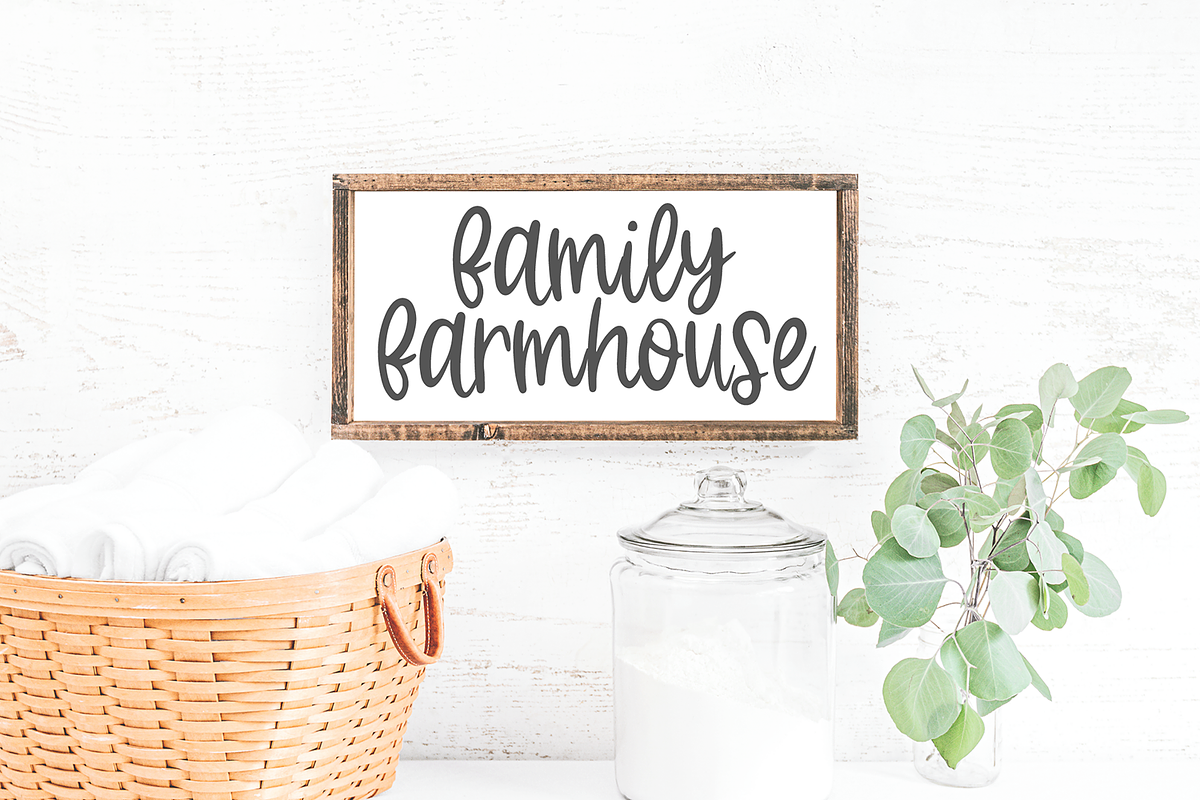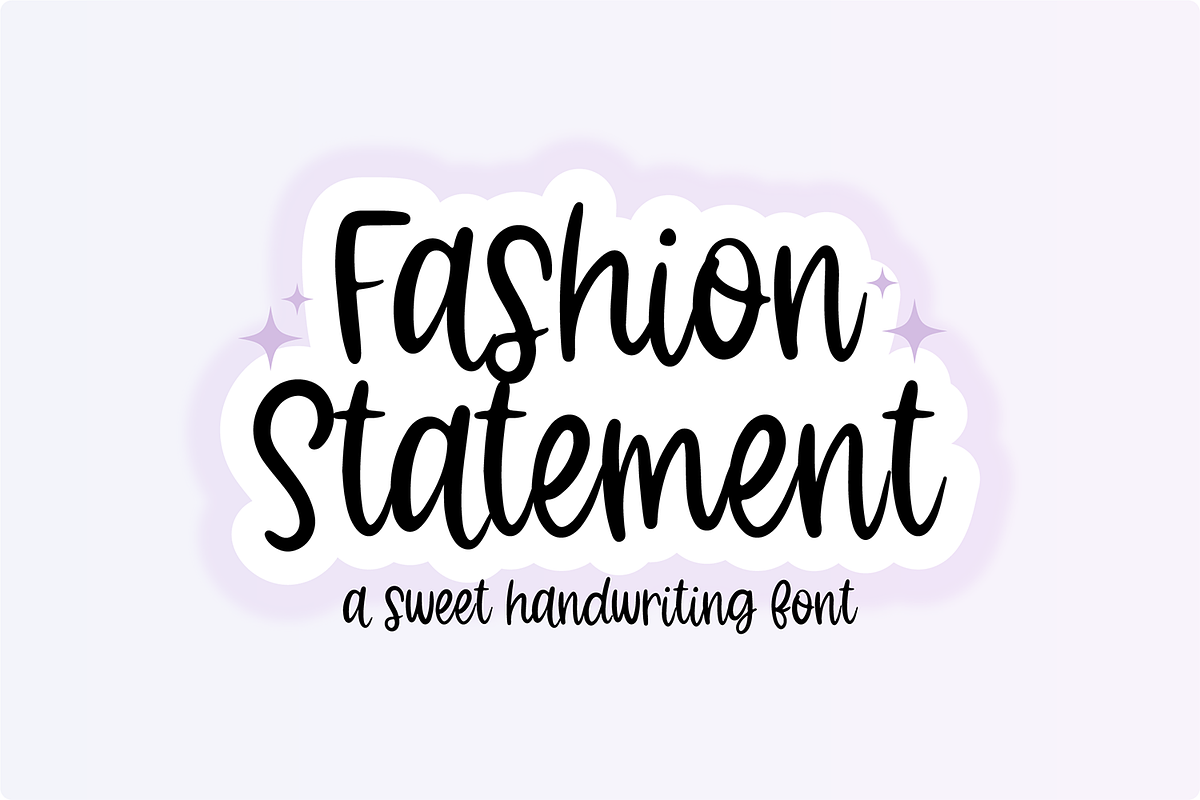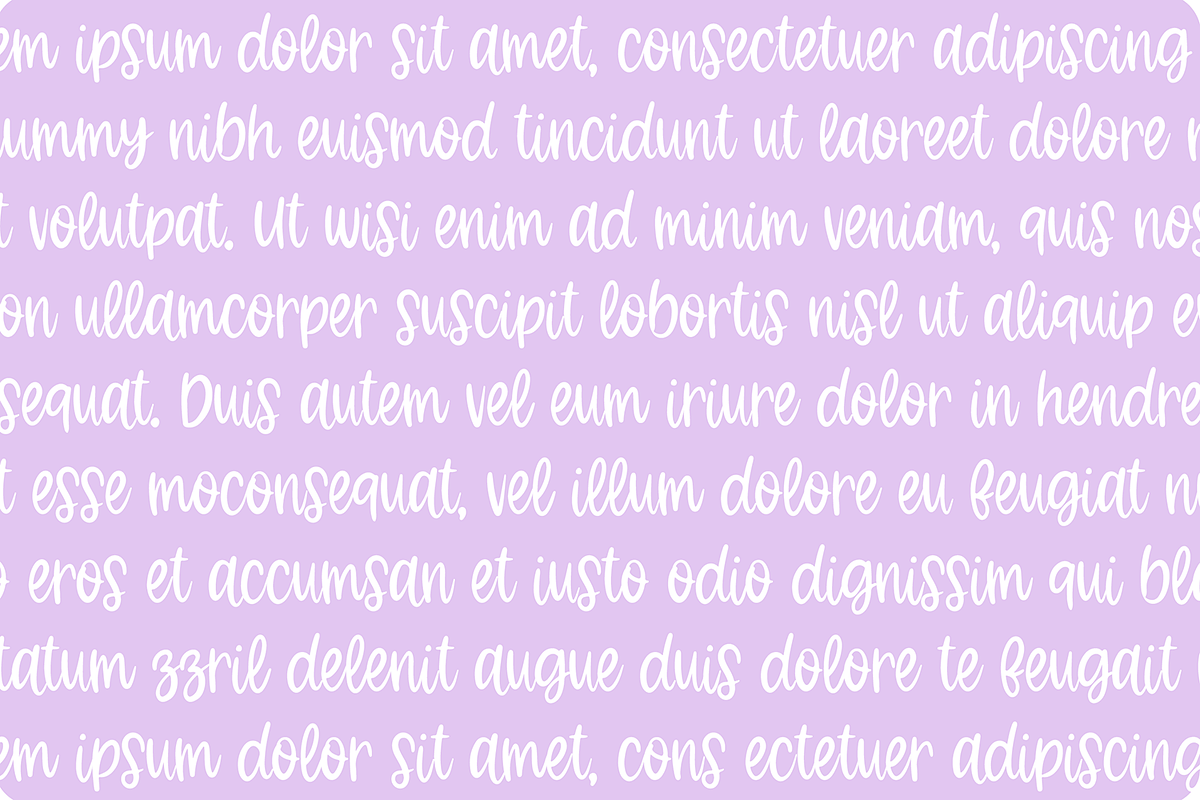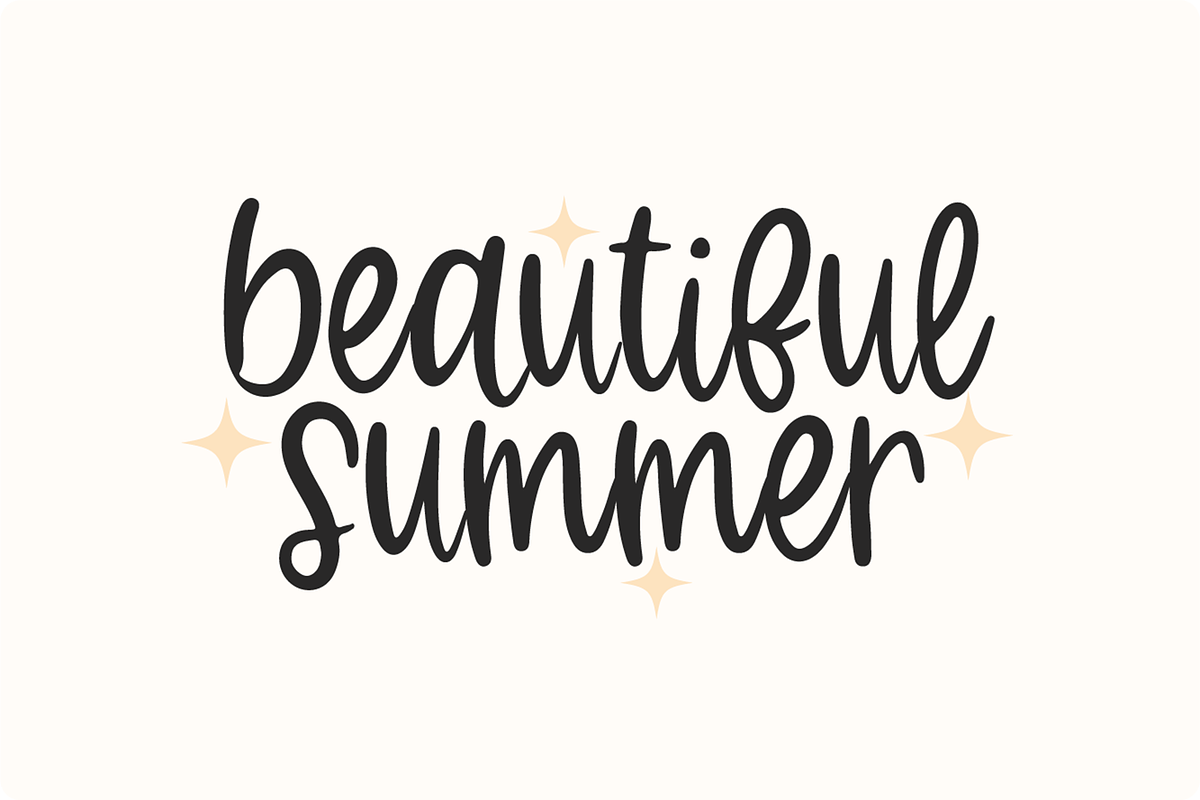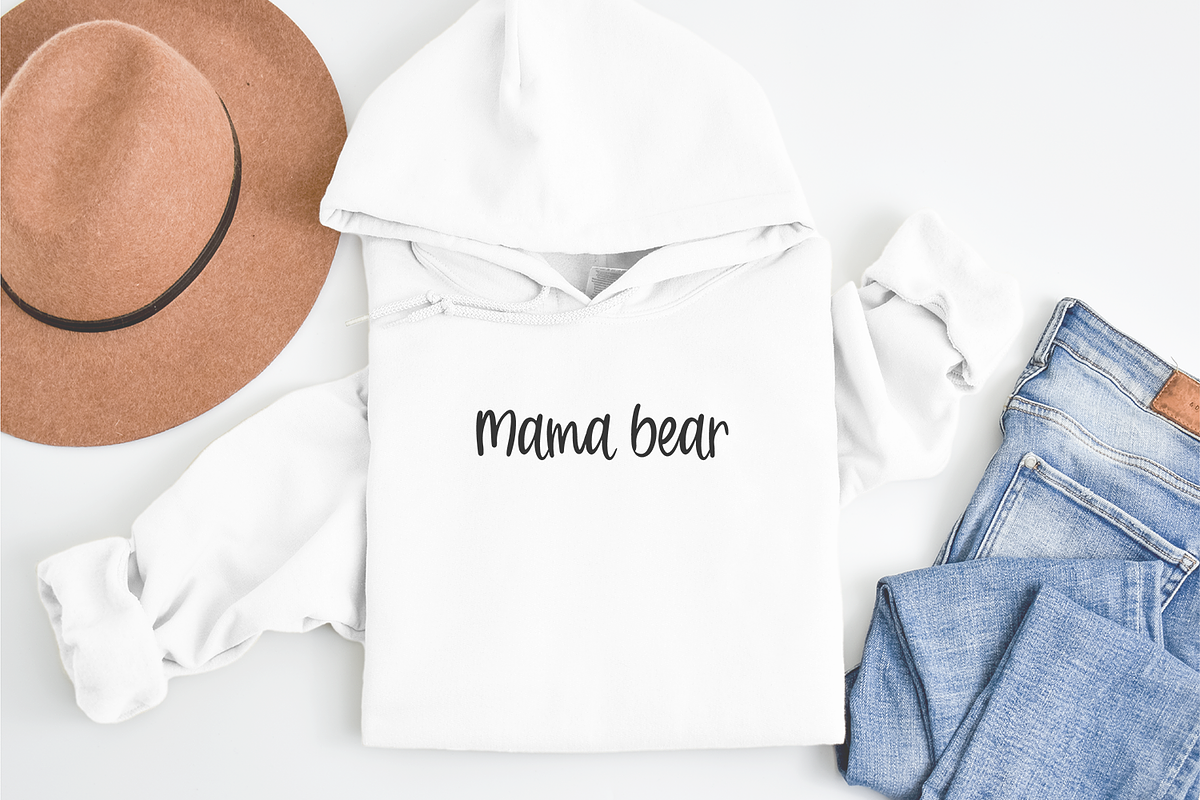
FASHION STATEMENT Brush Handwriting
"Fashion Statement" casual script handwriting font.
Fashion Statement is a simple and cute handwriting font that is perfect for social media or goodnotes or digital planning. Use it for branding, crafts for decor, invitations, and more! This font includes upper and lowercase glyphs, numbers, basic punctuation marks.